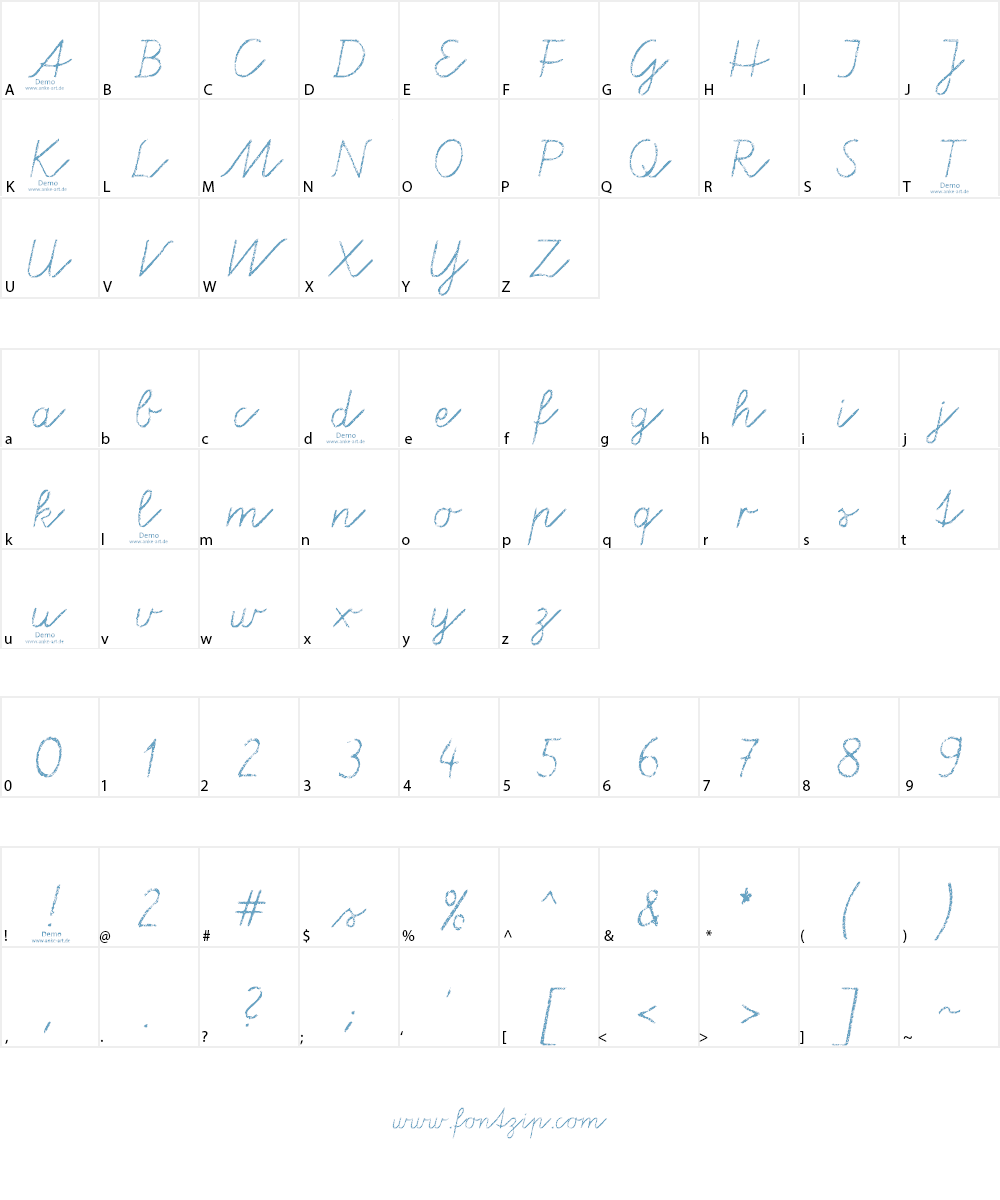
This font is based on the German "Vereinfachte Ausgangsschrift" which is used in elementary schools. If you need the full version, please visit my website for all licensing options.